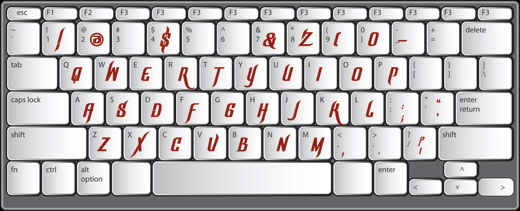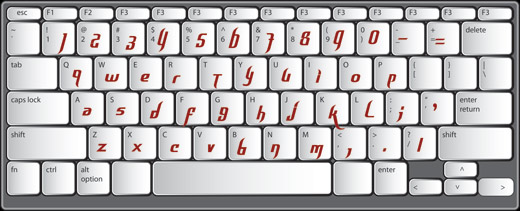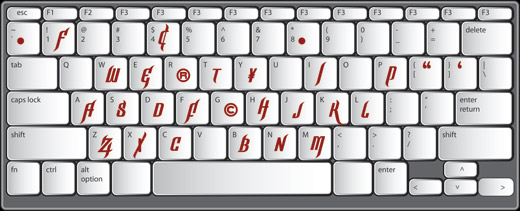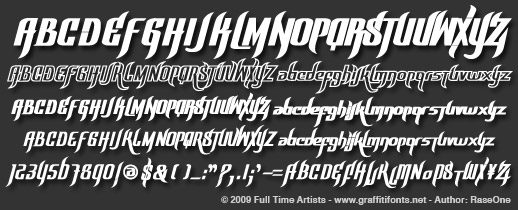
Halfway
between graffiti & typeography you find styles like Graffick™.
These fonts are derived directly from hand written letters
made mechanically perfect to behave more like common digital
fonts.
The Graffick™ font family includes 5 styles each with different letters & properties.
• Graffick Regular
• Graffick Top
• Graffick Wide
• Graffick Outline
• Graffick Wide Top